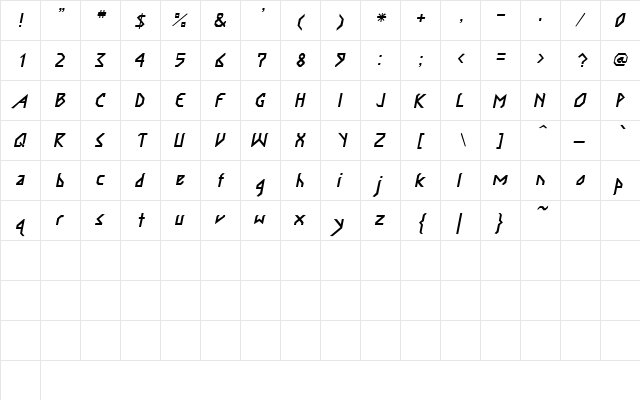
Inertia Oblique
Design Context for Inertia Typeface
Inertia offers clean, dependable letterforms without strong stylistic allegiance, making it a practical choice for designers who need flexibility. The slanted form adds forward momentum and visual energy.
Pro Tip: Try Inertia for annotation and caption copy alongside an upright companion — the contrast in angle creates a dynamic but ordered typographic system.